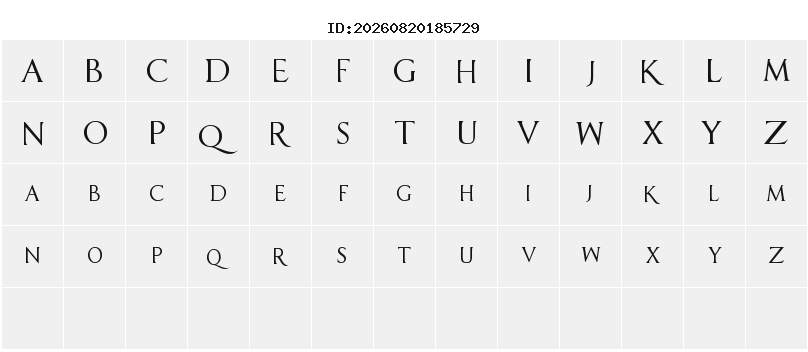
Sell Your Soul Preview
• Font Name: Sell Your Soul
• Full Font Name: Sell Your Soul
• Version: Version 1.00 December 3, 2004, initial release
About Sell Your Soul.ttf
Sell Your Soul.ttf is a modern, elegant sans-serif font designed for ultimate readability and visual harmony. Perfect for branding, headlines, web design, and print materials.